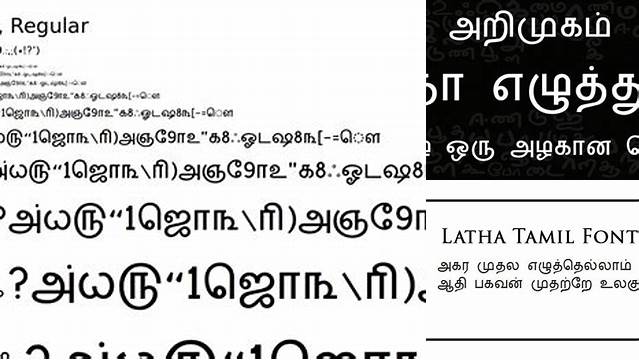
Hey guys! Are you looking for the Tamil font Latha free download? You've come to the right place! In this comprehensive guide, we'll dive deep into everything you need to know about this popular Tamil font. Whether you're a designer, a student, or simply someone who loves the Tamil language, Latha is a fantastic font to have in your collection. This article will walk you through the history and characteristics of the Latha font, its versatility, and where you can download it for free. We'll also cover licensing considerations and provide a detailed guide on how to install and use Latha on various operating systems like Windows, macOS, and Linux. So, let's get started and explore the world of Latha!
What is Tamil Font Latha?
Latha, a widely used Tamil font, holds a special place in the world of digital typography for the Tamil script. Its popularity stems from its excellent readability and elegant design, making it a go-to choice for a wide range of applications. But what exactly makes Latha so special? The font was originally developed by Microsoft as part of their efforts to provide comprehensive language support in their operating systems. This means that Latha was designed with compatibility and clarity in mind, ensuring that it looks great on screens of all sizes and resolutions. This font is a Unicode font, which is crucial because it ensures consistency across different platforms and software. Unlike older font encodings, Unicode supports a vast array of characters and symbols, making it ideal for languages like Tamil that have a rich and diverse character set. The design of Latha is characterized by its clean lines and balanced letterforms, which contribute to its exceptional readability. Whether you're working on a lengthy document, a website, or a presentation, Latha ensures that your text is easy on the eyes. Its aesthetic appeal also makes it suitable for creative projects where visual elegance is important. Compared to other Tamil fonts, Latha strikes a balance between traditional aesthetics and modern design principles. Some fonts may lean more towards ornate or calligraphic styles, while others might be too simplistic. Latha, however, offers a harmonious blend that makes it versatile for various uses. This balance is one of the key reasons why Latha has become a staple in the Tamil-speaking digital community. It's a font that can be used for anything from official documents to creative design projects, making it an indispensable tool for anyone working with the Tamil script. If you're new to Tamil typography, Latha is an excellent starting point due to its widespread use and clear design. Once you become familiar with Latha, you can then explore other Tamil fonts to find the perfect fit for your specific needs. In short, Latha is more than just a font; it's a testament to the importance of accessible and well-designed typography in the digital age. Its Unicode compliance, readability, and balanced design make it a top choice for anyone working with the Tamil language.
Why is Latha Font So Popular?
There are several reasons why the Latha font has become a favorite among Tamil speakers and designers alike. The widespread popularity of the Latha font can be attributed to several key factors. First and foremost, its readability is exceptional. The clean, clear design of the letterforms makes it easy to read both on screen and in print, which is crucial for any font intended for extensive use. Whether you're reading a long document, browsing a website, or viewing a presentation, Latha ensures that the text remains legible and doesn't strain the eyes. This is especially important for languages like Tamil, which have complex character shapes and structures. Another significant factor is its versatility. Latha is suitable for a wide range of applications, from formal documents and business communications to creative design projects and personal use. Its neutral yet elegant appearance allows it to fit seamlessly into various contexts without looking out of place. This versatility makes it a reliable choice for designers and users who need a font that can handle different types of content and styles. Furthermore, the fact that Latha is a Unicode font is a major advantage. Unicode is the industry standard for character encoding, ensuring that the font displays correctly across different platforms, operating systems, and software applications. This means that you can use Latha on Windows, macOS, Linux, and even mobile devices without worrying about compatibility issues. This cross-platform consistency is essential for anyone who needs to share documents or collaborate with others who might be using different systems. The availability of free downloads also plays a crucial role in Latha's popularity. Because it was originally developed by Microsoft, Latha is often available for free download, making it accessible to a wide audience. This accessibility has contributed to its widespread adoption, as users don't have to pay a premium to use a high-quality Tamil font. The combination of readability, versatility, Unicode compliance, and free availability has made Latha a staple in the Tamil-speaking digital community. It's a font that has stood the test of time and continues to be a top choice for anyone working with the Tamil language. Whether you're a student, a professional, or a creative artist, Latha offers a reliable and visually appealing solution for all your Tamil typography needs. Its enduring popularity is a testament to its quality and usefulness, making it an essential font in any digital toolkit.
Using Latha Font in Your Projects: Tips and Tricks
Now that you've got Latha font installed, let's talk about how to make the most of it in your projects. Latha is a versatile font, but like any tool, it's essential to know how to use it effectively. Whether you're designing a website, creating documents, or working on a presentation, here are some tips and tricks to help you leverage the full potential of Latha. First off, consider the context of your project. Latha’s clean and readable design makes it suitable for a wide range of applications, but it's not a one-size-fits-all solution. For formal documents and professional communications, Latha is an excellent choice due to its clarity and legibility. However, for more creative or artistic projects, you might want to pair it with a more decorative font to add visual interest. Think about the overall tone and style you want to convey, and choose Latha accordingly. Font pairing is another crucial aspect of typography. While Latha is a great standalone font, combining it with other fonts can create a more dynamic and engaging design. When pairing fonts, look for fonts that complement Latha's characteristics without clashing. A simple sans-serif font can work well for headings, while Latha can be used for the body text to ensure readability. Experiment with different combinations to find what works best for your project. Pay attention to font size and spacing as well. Latha's readability is one of its strengths, but it can be diminished if the font size is too small or the spacing is too tight. Ensure that the font size is appropriate for the medium you're using, whether it's a screen or a printed page. Adjust the line spacing (leading) and letter spacing (tracking) to create a comfortable reading experience. Proper spacing can make a significant difference in how easily your text is read and understood. Color and contrast also play a vital role in the overall impact of your typography. When using Latha, make sure there is sufficient contrast between the text color and the background color. Light text on a dark background or dark text on a light background generally works best for readability. Avoid using colors that are too similar, as this can make the text difficult to read. Consider using color to highlight important words or phrases, but use it sparingly to avoid overwhelming the reader. Lastly, always test your design on different devices and platforms. What looks good on your computer might not look the same on a mobile device or a different operating system. Check your typography on various screens and browsers to ensure that Latha is rendering correctly and your text is legible. This step is particularly important for web design, where users might be accessing your site from a variety of devices. By keeping these tips and tricks in mind, you can effectively use Latha font in your projects and create visually appealing and readable designs. Latha’s versatility and clarity make it a valuable asset in any designer’s toolkit, so take the time to master its use and unleash its full potential.